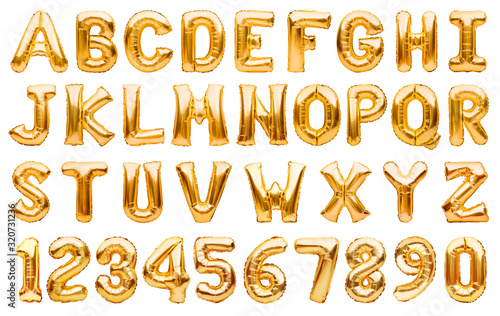
English alphabet and numbers made of golden inflatable helium balloons isolated on white. Gold foil balloon font, full alphabet set of upper case letters and numbers.